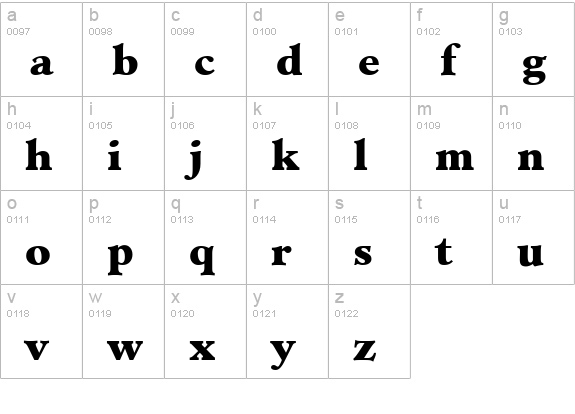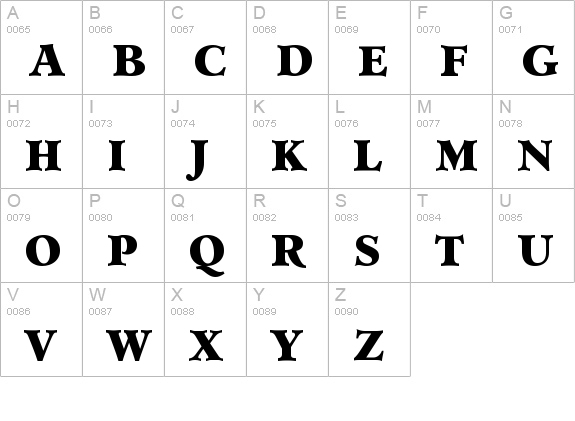
Cleric Black SSi Black is a maximum-weight, dramatic variant in the Cleric typeface family \xE2\x80\x94 well suited to maximum-impact headlines, posters, and packaging.
Cleric Black SSi Black is a striking and elegant font that exudes a sense of authority and sophistication. Its bold, sharp lines make it perfect for headlines, titles, and any design projects that require a touch of drama. This font commands attention and leaves a lasting impression. The best part about Cleric Black SSi Black font is that it is available for free download at FontsMarket.com. This means you can easily add this powerful font to your collection without any cost. Don't miss out on the opportunity to enhance your designs with this stylish and versatile typeface. Download Cleric Black SSi Black today and elevate your projects to the next level.